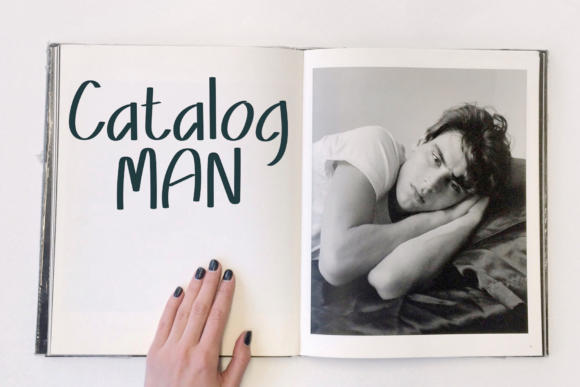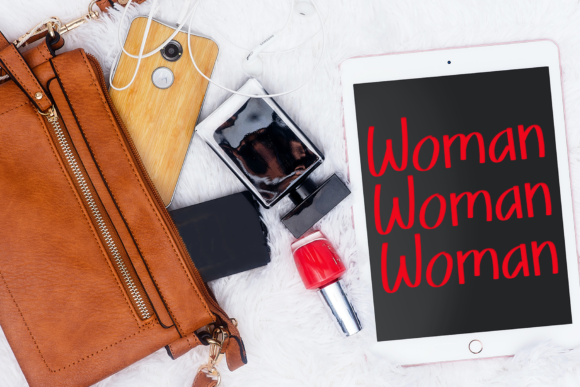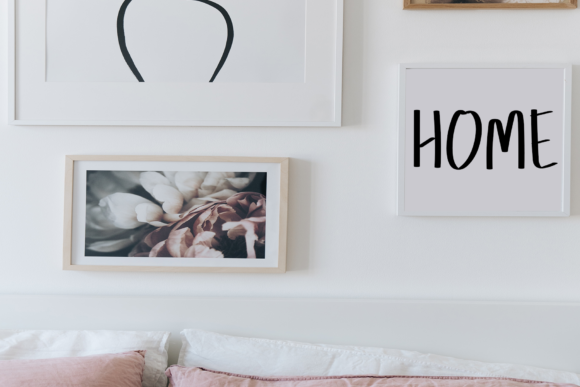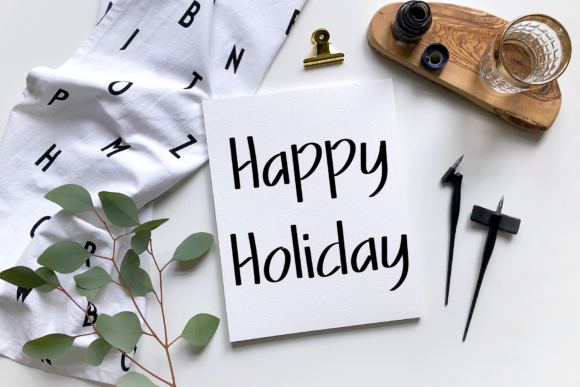
Hello Winter Font
About Hello Winter Font
Hello Winter is a delightful handwritten font that embodies a relaxed and natural style. With its casual and effortless appearance, this font adds a touch of warmth and simplicity to your designs. Whether you’re working on holiday-themed projects, social media graphics, invitations, or any other creative endeavor, Hello Winter will bring a cozy and inviting feel to your designs.
The natural flow and organic strokes of Hello Winter create a sense of authenticity and handmade charm. The letters have a relaxed and casual vibe, making them versatile and suitable for a wide range of design contexts. From headlines to body text, Hello Winter can be used to evoke a sense of comfort and ease.
The simplicity of Hello Winter also adds to its versatility. The clean and legible letterforms make it easy to read, ensuring that your message is effectively communicated. Whether you’re using Hello Winter for personal or professional projects, its relaxed style will bring a sense of warmth and approachability to your designs.
With Hello Winter, you have the freedom to experiment and explore different design elements. Its natural and casual style pairs well with illustrations, hand-drawn elements, or even other handwritten fonts. You can also play with color and texture to create a cozy and inviting atmosphere in your designs.
Whether you’re designing winter-themed graphics, creating heartfelt greeting cards, or adding a personal touch to your social media posts, Hello Winter is a wonderful choice. Its relaxed and natural handwritten style adds a touch of warmth and simplicity to any design, making it a versatile and inviting font.
In conclusion, Hello Winter is a relaxed and natural handwritten font that brings a cozy and inviting feel to your designs. Its casual style and legible letterforms make it suitable for a wide range of design applications. Embrace the warmth and simplicity of Hello Winter, and let it add a touch of charm to your creative projects.